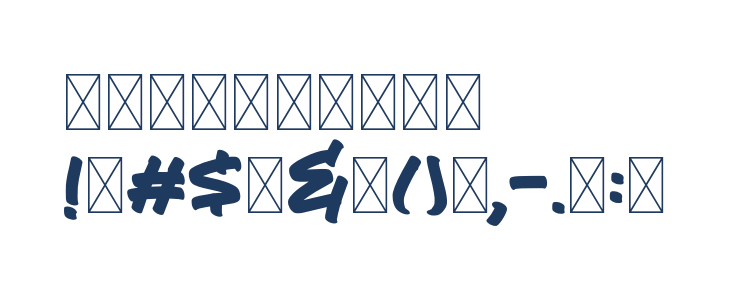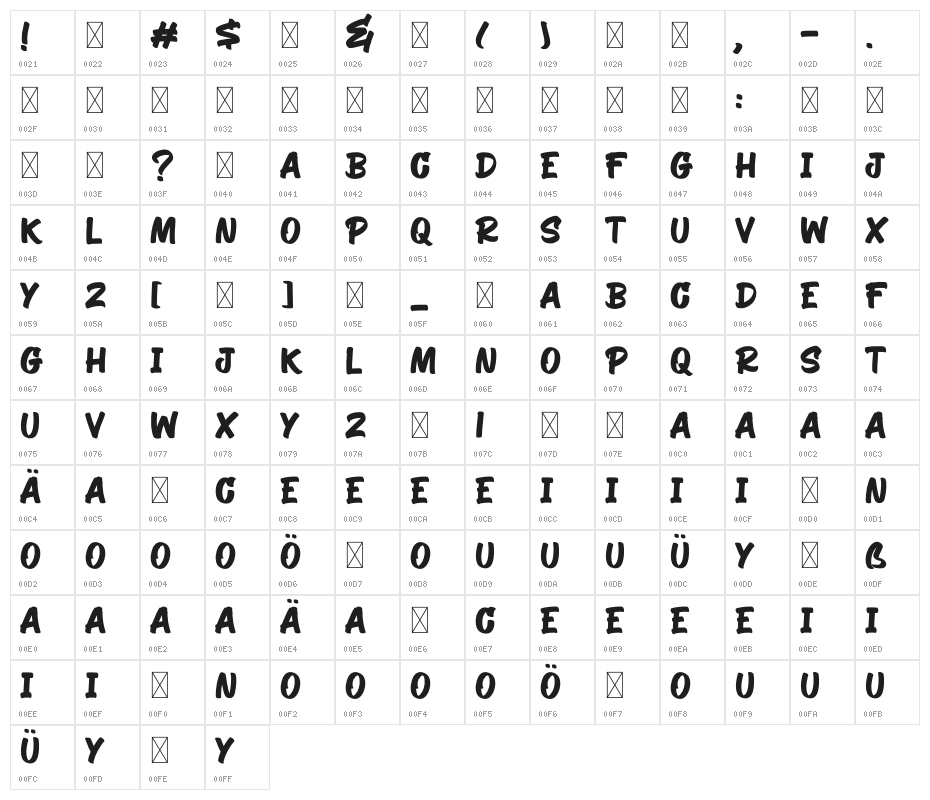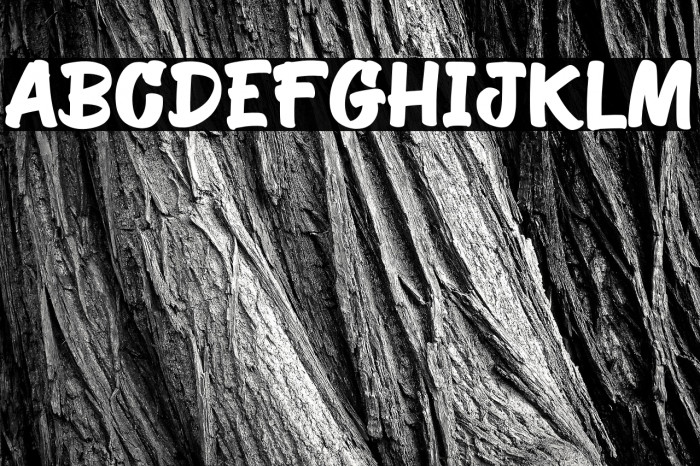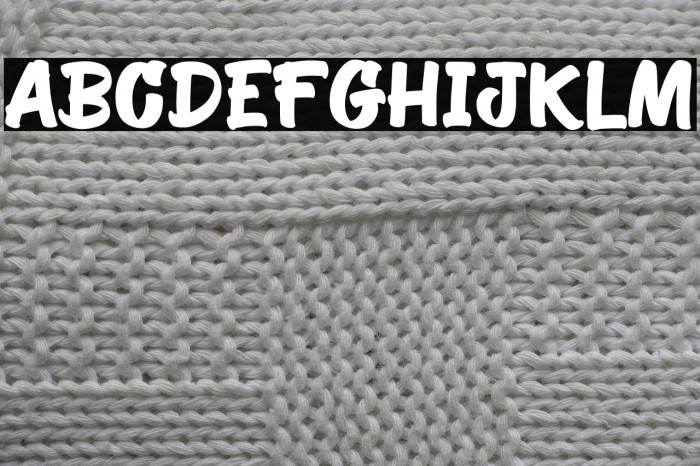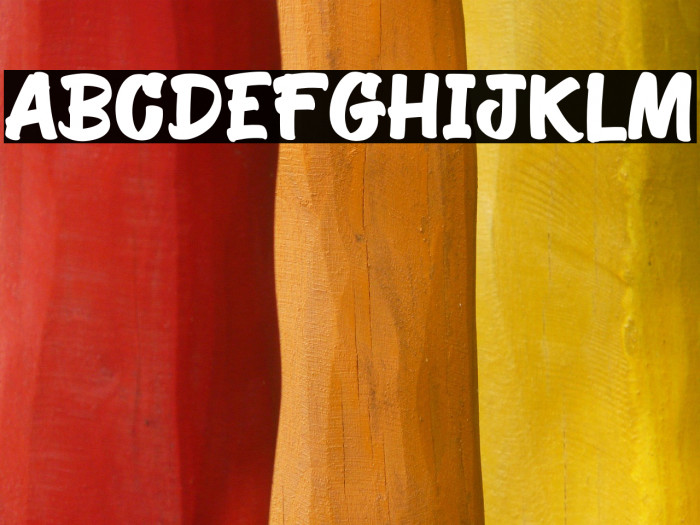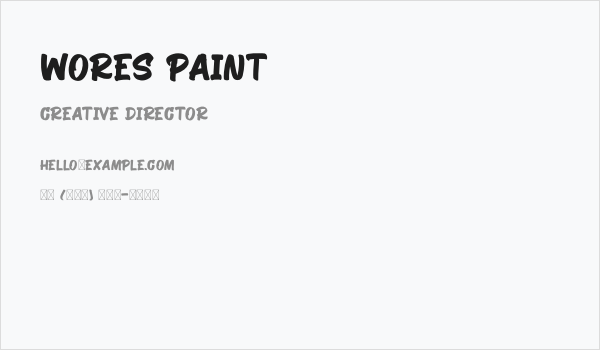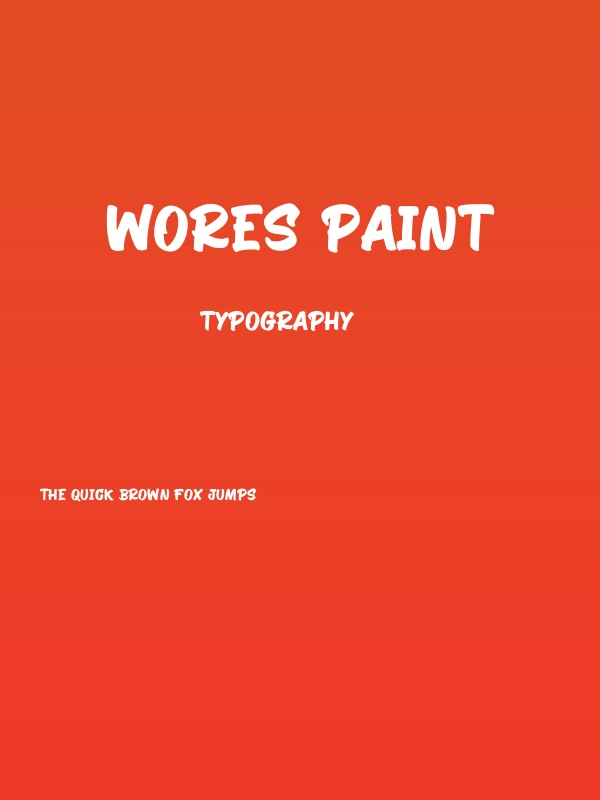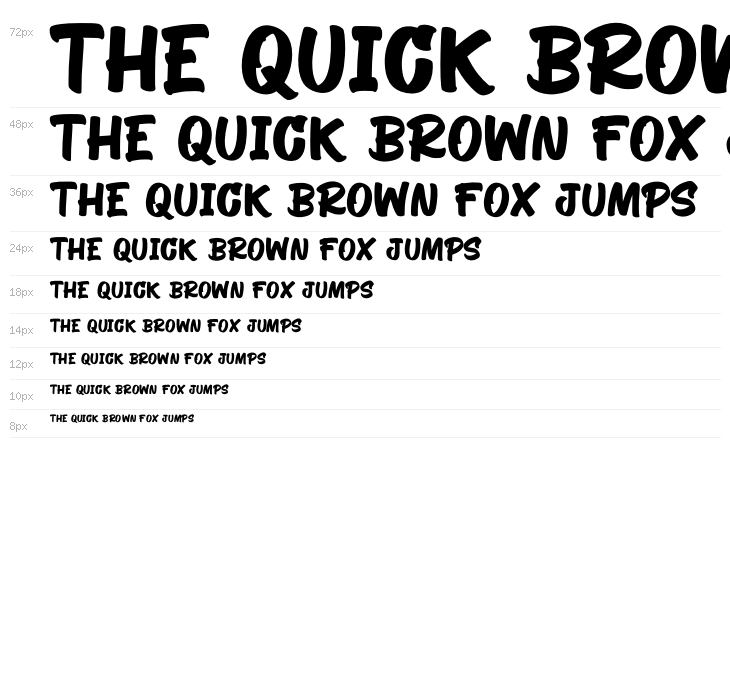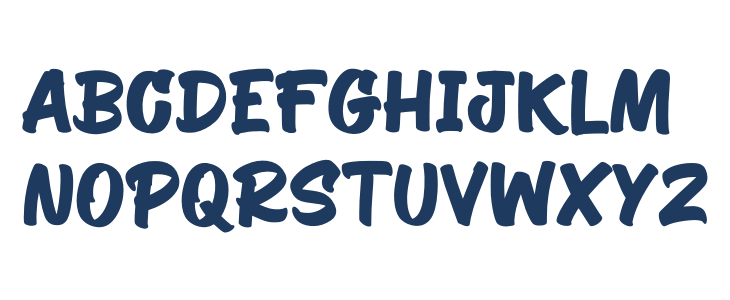
Wores Paint Font
Wores Paint Description
This font features a bold and expressive style with a hand-painted appearance. The characters are thick and rounded, giving them a playful and dynamic look. The strokes are uneven, mimicking the natural flow of brush strokes, which adds a sense of movement and energy. The uppercase and lowercase letters maintain consistent proportions, while the numbers and special characters follow the same artistic theme. This font is ideal for projects that require a creative and informal touch.